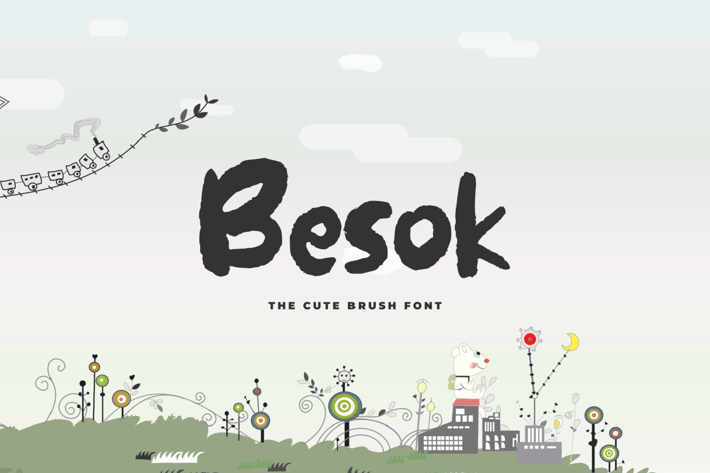
Besok - The Cute Brush Font
Besok - The Cute Brush Font, it’s perfect for logos, name card, magazine layouts, invitations, headers, or even large-scale artwork.